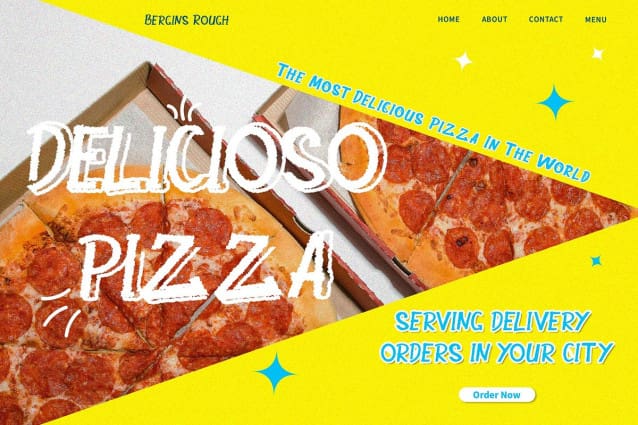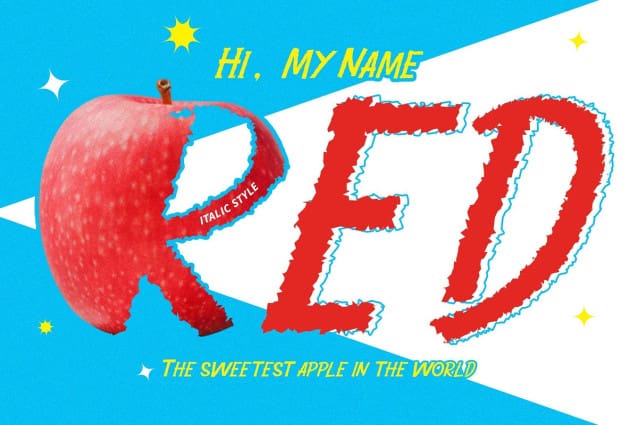
Berkin Rough Font
Berkin Rough Font a distinctive sans serif style with an intentionally irregular appearance. Its rough edges and imperfect lines evoke a sense of rustic charm and authenticity.
Vintage Aesthetic with Rough Texture Drawing inspiration from vintage typography, This font embraces a rough texture that adds character and depth to each letterform. The weathered look imbues the font with a nostalgic appeal, perfect for vintage-themed projects.
Ideal for Vintage Display Tailored for display purposes, This font excels in projects seeking a retro or antique vibe. From posters to packaging, its vintage-inspired design brings a unique flair to any visual composition.
Versatile Usage Despite its vintage aesthetic, This font offers versatility in application. Whether used for branding, headlines, or editorial layouts, its rough charm injects personality and visual interest into any design.
Vintage Appeal for Modern Projects This font captures the essence of vintage typography with its rough texture and irregular sans serif design. Perfect for adding character to display projects, it bridges the gap between nostalgia and modern design sensibilities, offering a unique and captivating visual experience.